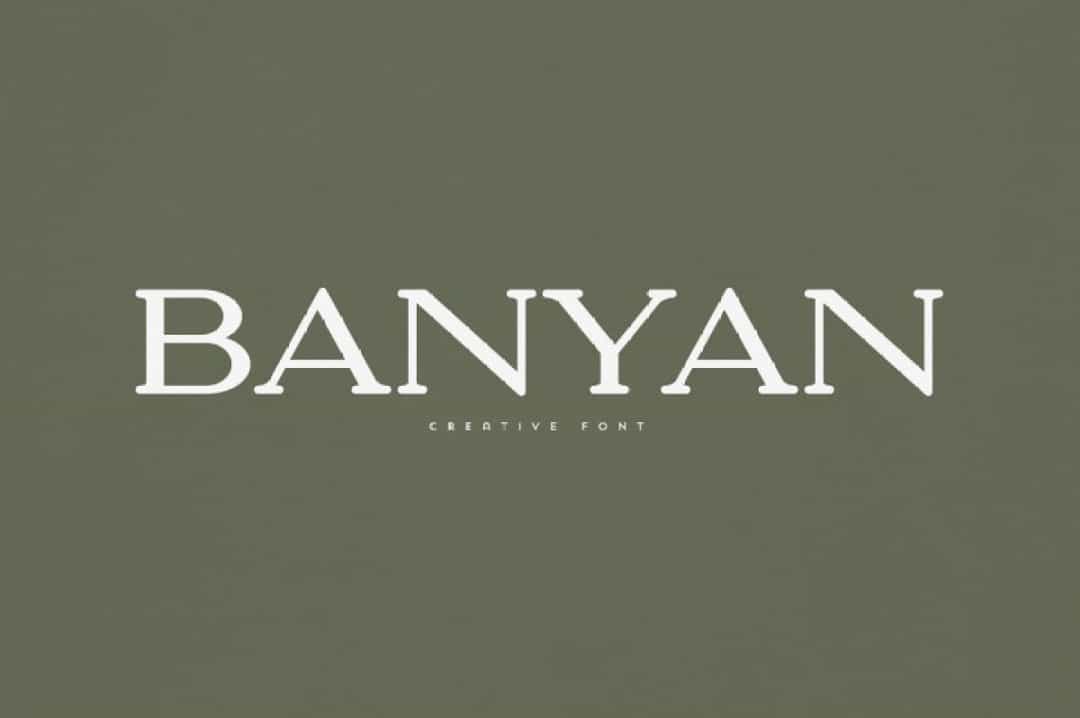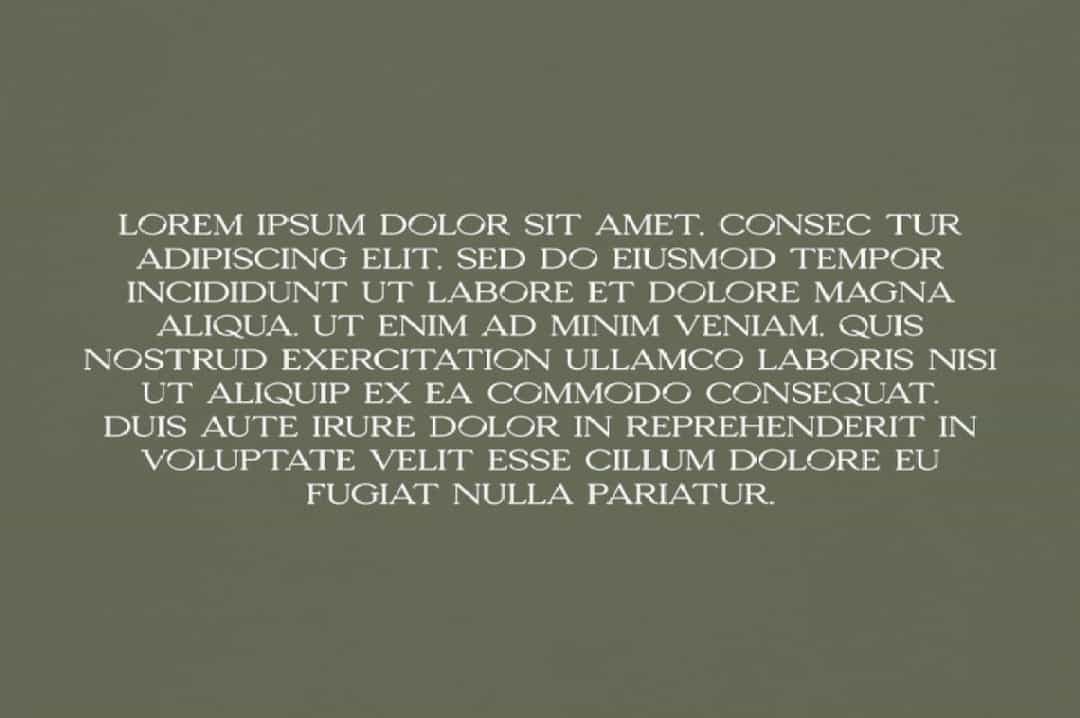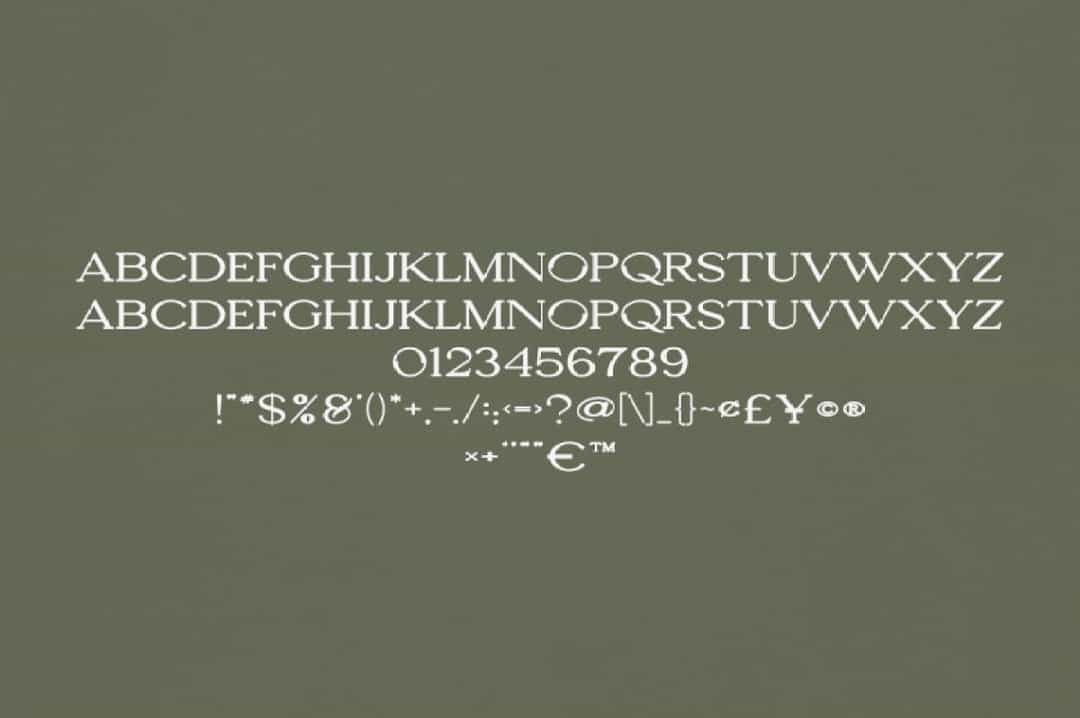
Banyan can be described as a stunning and versatile serif typeface that adds an eye-catching element to any typographic composition! Perfect for headlines, logos, branding or simple text – its beauty will inspire any project! Perfect for branding products magazines headlines or elegant text overlays. Banyan font is also great as an additonal layer on images!